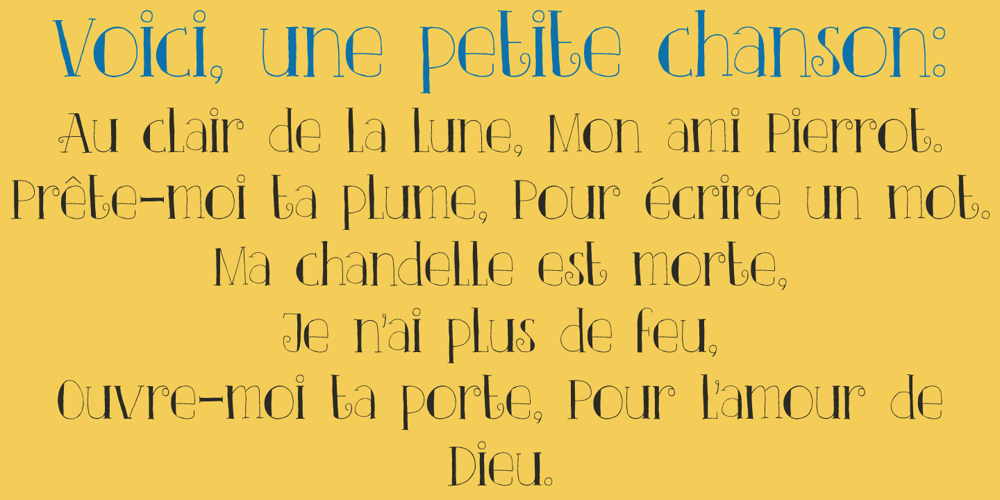
Clair De Lune
Clair De Lune font
Clair De Lune Font Family was designed by David Kerkhoff and published by Hanoded. Clair De Lune contains 3 styles and family package options. Clair De Lune is part of the famous Suite Bergamasque, written by Claude Debussy in 1890, and published in 1905. It means Moonlight in French, a kind of romantic name. The name is exactly what I had in mind for this übercute font. Clair De Lune can be used to design postcards and posters, liven up websites and give your designs an overall happy feel. Clair De Lune was handmade using a 0.5 pen, eco friendly Italian paper and a wooden kitchen table.